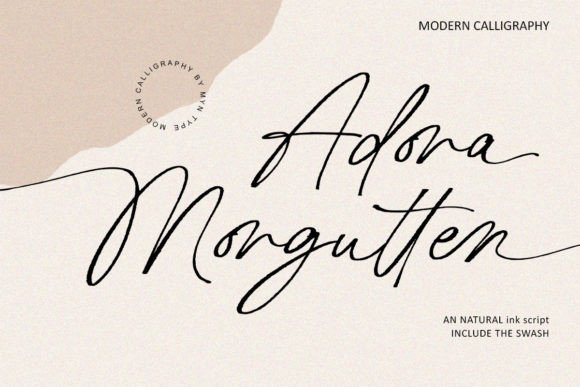
Introduction to Adora Morgutten Font
Meet Adora Morgutten, a font masterpiece that seamlessly marries the fluidity of traditional calligraphy with a sleek and modern aesthetic.
Characterized by its expressive strokes, this font exudes a dynamic energy that captures the essence of handcrafted artistry Adora Morgutten is perfect for creating calligraphy logos, invitations, display product, wedding design, social media graphics, and other design elements that require a contemporary and handcrafted touch.
Key Features of Adora Morgutten Font